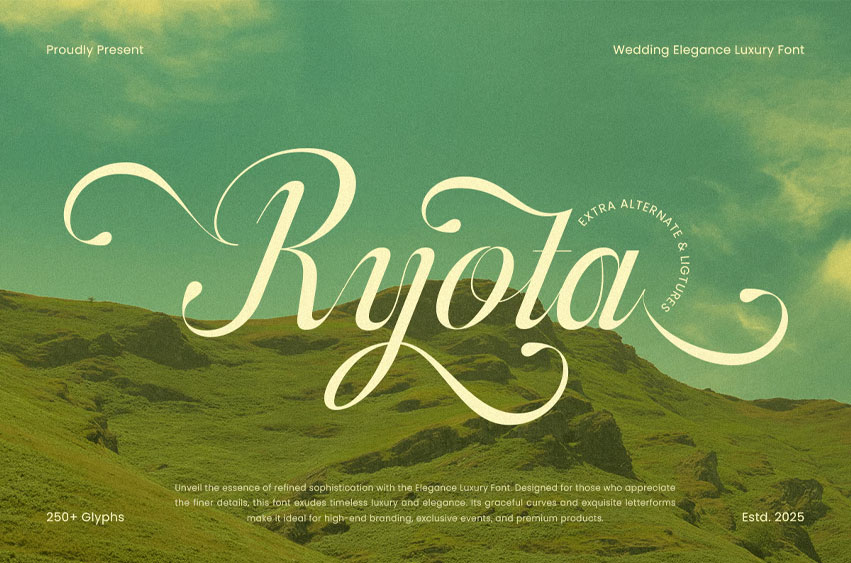
Ryota Font is an elegant wedding script font that captures timeless beauty and luxury. Perfect for high-end wedding invitations, luxury branding, and refined designs, Ryota combines delicate, flowing curves with sophisticated script lettering for a graceful, upscale feel.
Whether you’re designing wedding stationery, elegant logos, or premium product branding, Ryota adds a refined and professional touch. Inspired by traditional calligraphy and modern elegance, this font is ideal for creating memorable, classy designs for luxury events and brands.
Ryota – Wedding Elegant Script Luxury Font Features
• Elegant script with refined, luxurious letterforms
• Ideal for wedding invitations, branding, and high-end design projects
• Includes uppercase, lowercase, numerals, and punctuation
• Timeless, graceful design with a modern touch
• OpenType features for advanced typographic flexibility
Create a luxurious and unforgettable brand with Ryota – the ultimate font for wedding and high-end design.